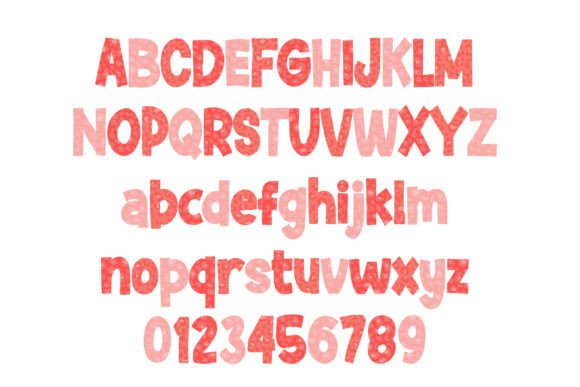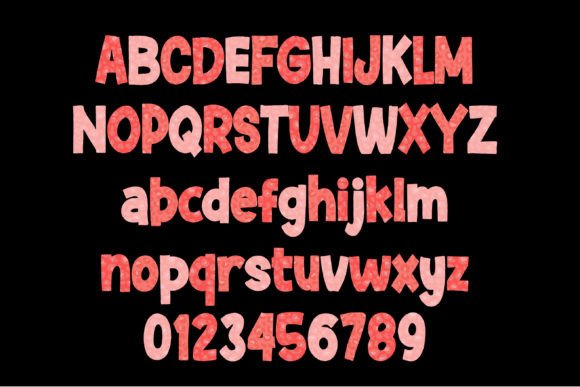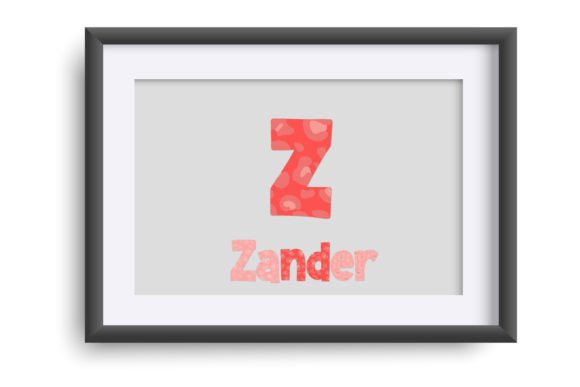
Introduction to Lacey Leopard Font
This full-color font features a leopard style print in pinks and corals.
There is an alt version of each letter in a different color that you can access through your system or Silhouette’s character map If you are looking for a versatile, high-quality font that can be used for a variety of projects, then a full-color SVG font is the perfect choice for you.
Key Features of Lacey Leopard Font
Why Choose Lacey Leopard Font?